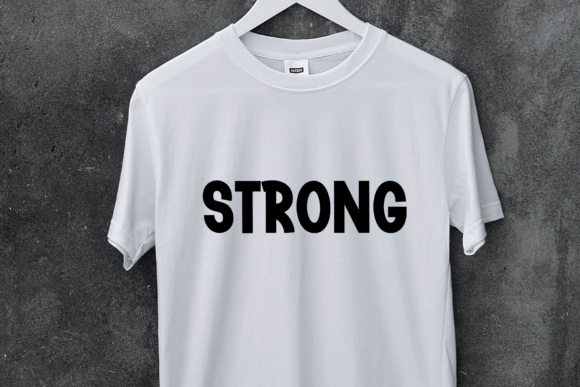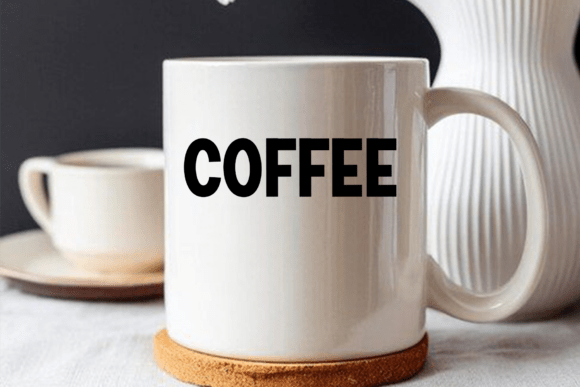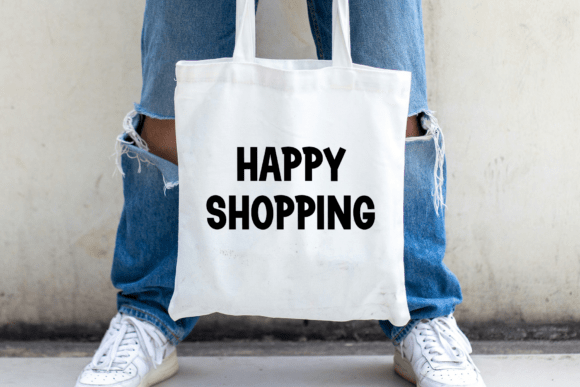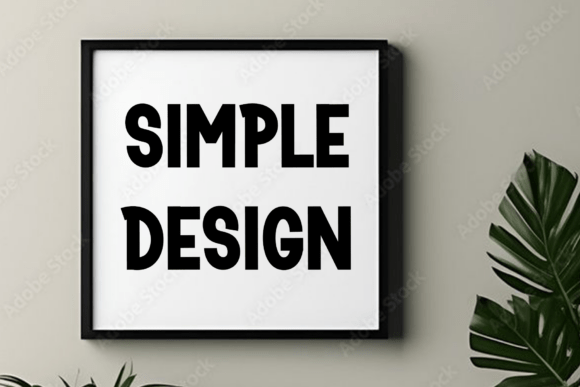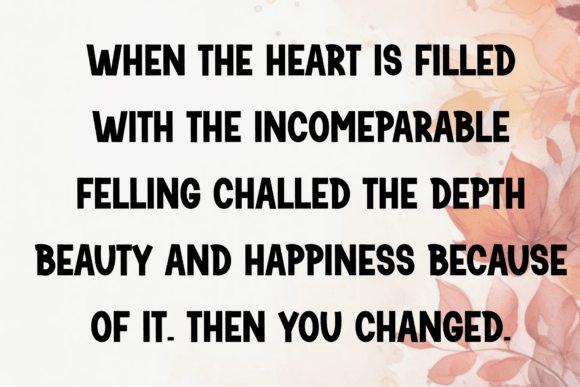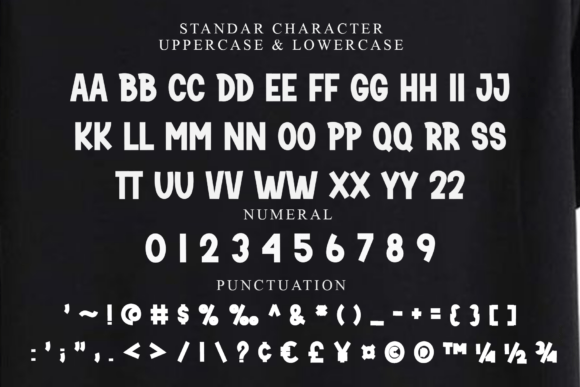
The Perfect Font for Making a Statement
As a designer, there’s nothing quite like the thrill of creating something new and exciting. You’re staring at a blank canvas, and suddenly, an idea sparks – a bold concept that needs a font to match its energy. That’s when you need a font that can bring your vision to life, and that’s exactly where Besthetical Font comes in.
Besthetical Font, specifically the Smart Bold variant, is a powerful display font that exudes confidence and personality. Its clean, contemporary design makes it perfect for headlines, branding, and social media graphics that need to stand out from the crowd. Whether you’re a seasoned designer or just starting out, this font is a valuable addition to your toolkit, offering a unique combination of modernity and approachability that’s sure to elevate your designs.
Besthetical Font Key Features
- Font Family: Besthetical is a modern sans-serif font family designed for a wide range of applications.
- Font Sizes: Supports a wide range of font sizes, from 8pt to 72pt, making it suitable for various design projects.
- Unique Characteristics: Besthetical features a unique blend of geometric and organic shapes, resulting in a clean and modern aesthetic.
Besthetical Font Review
Overall, I think Besthetical Font has some great qualities that make it a solid choice for certain projects. ✨ The font’s modern and sleek aesthetic is perfect for contemporary designs, and the clean lines make it easy to read. ✨ The font’s versatility also shines through in its various styles, from sans-serif to script.
One of the standout features of Besthetical Font is its wide language support, making it an excellent choice for international projects. ✨ Additionally, the font is highly customizable, allowing designers to fine-tune the spacing, size, and color to suit their needs.
- ⚠️ Limited expressive character set, which may not be ideal for projects requiring complex typography
- ⚠️ Font may not be suitable for projects requiring a strong, bold, or vintage aesthetic
- ⚠️ Some users may find the font too plain or lacking in personality
Overall, I think Besthetical Font is a solid choice for designers looking for a modern, clean, and versatile font. While it may not be the best fit for every project, it’s definitely worth considering for contemporary designs that require a sleek and sophisticated look.
Besthetical Font is particularly useful in Canva for creating eye-catching headings and titles.
Besthetical Font is ideal for creating unique and stylish typography in Adobe Photoshop or Illustrator.
Besthetical Font is great for adding a touch of elegance and sophistication to your presentations or documents.
Besthetical Font is commonly used for:
- Creating eye-catching headings and titles.
- Designing custom logos and graphics.
- Adding a touch of elegance to presentations and documents.
- Creating unique and stylish typography-based